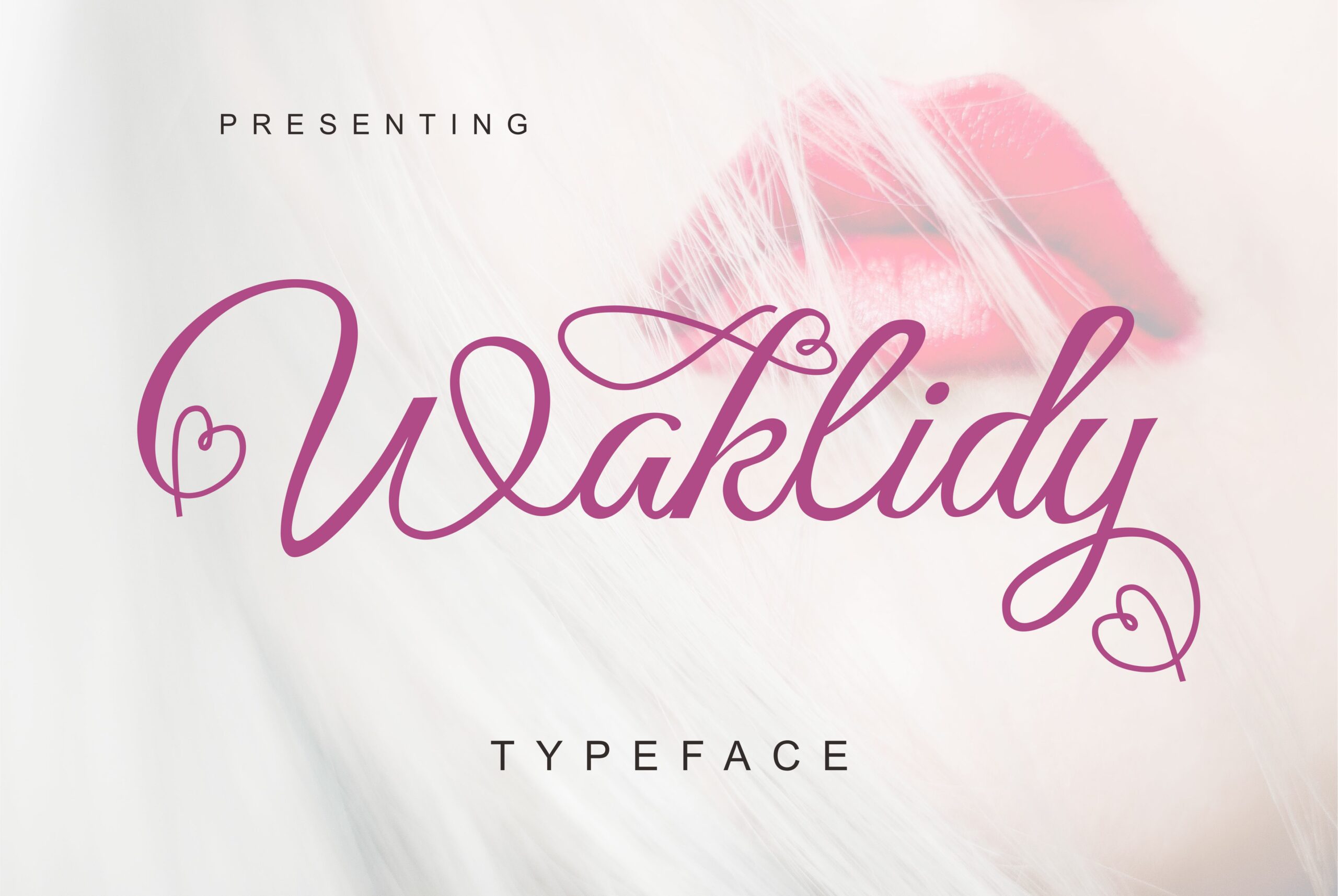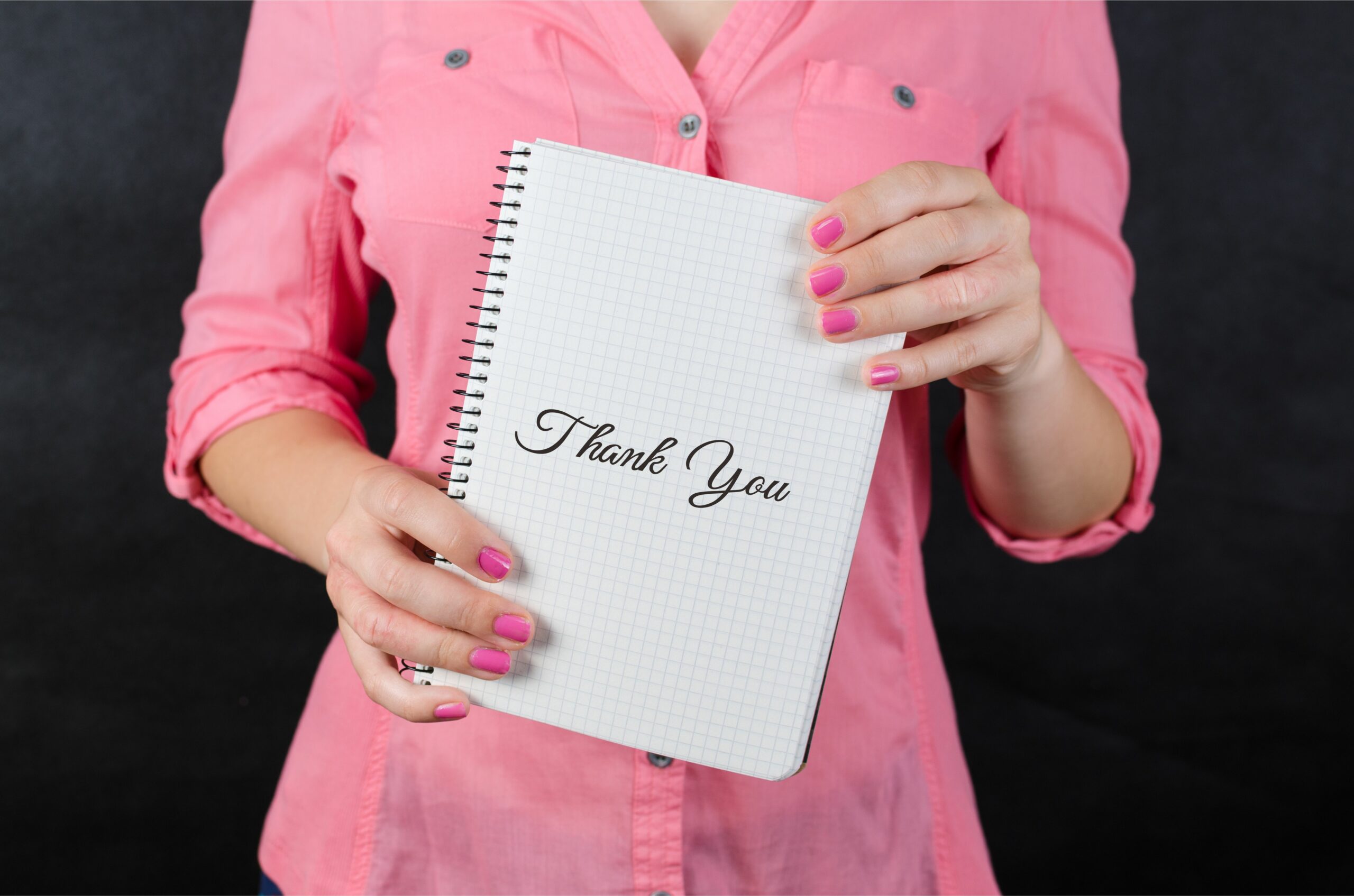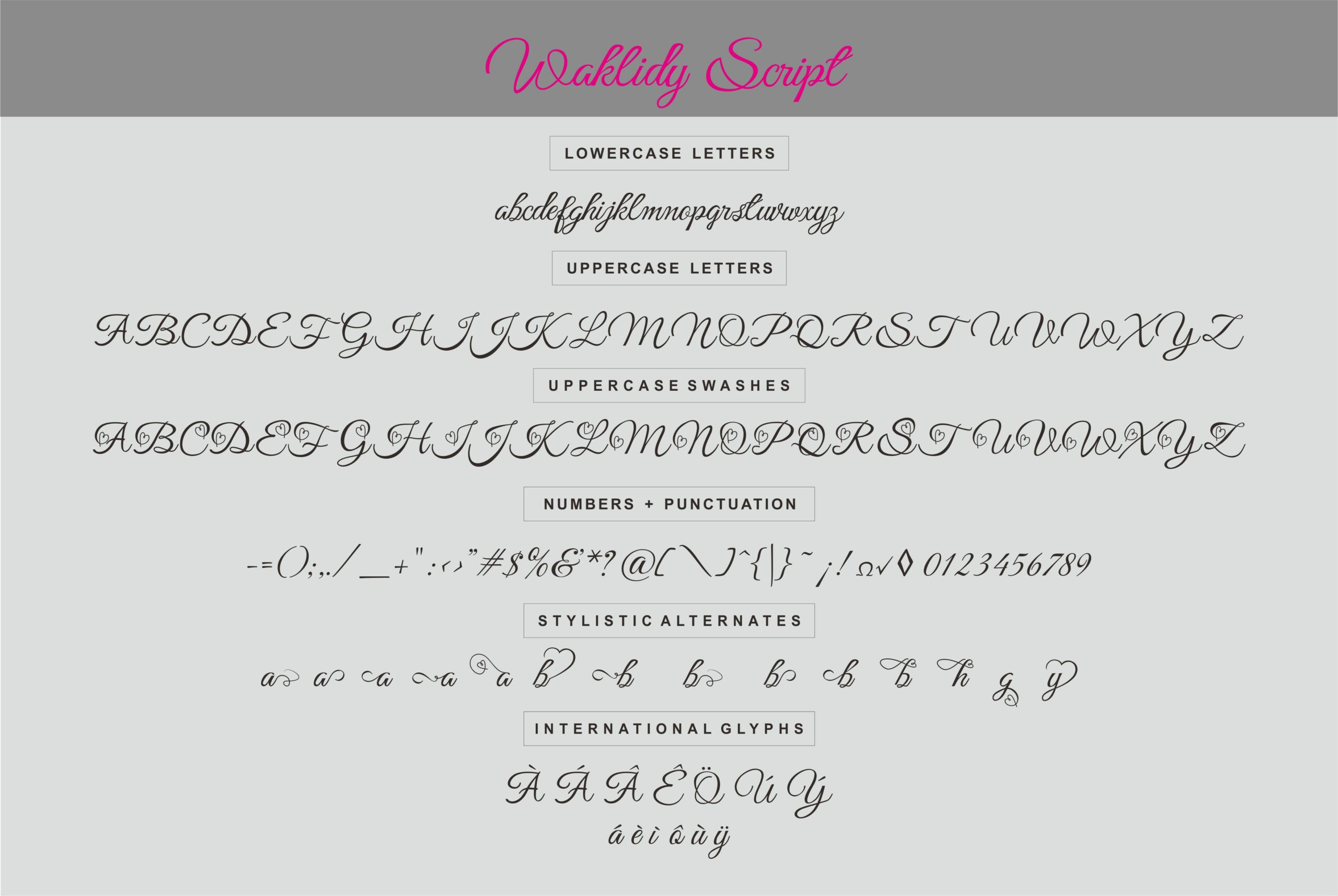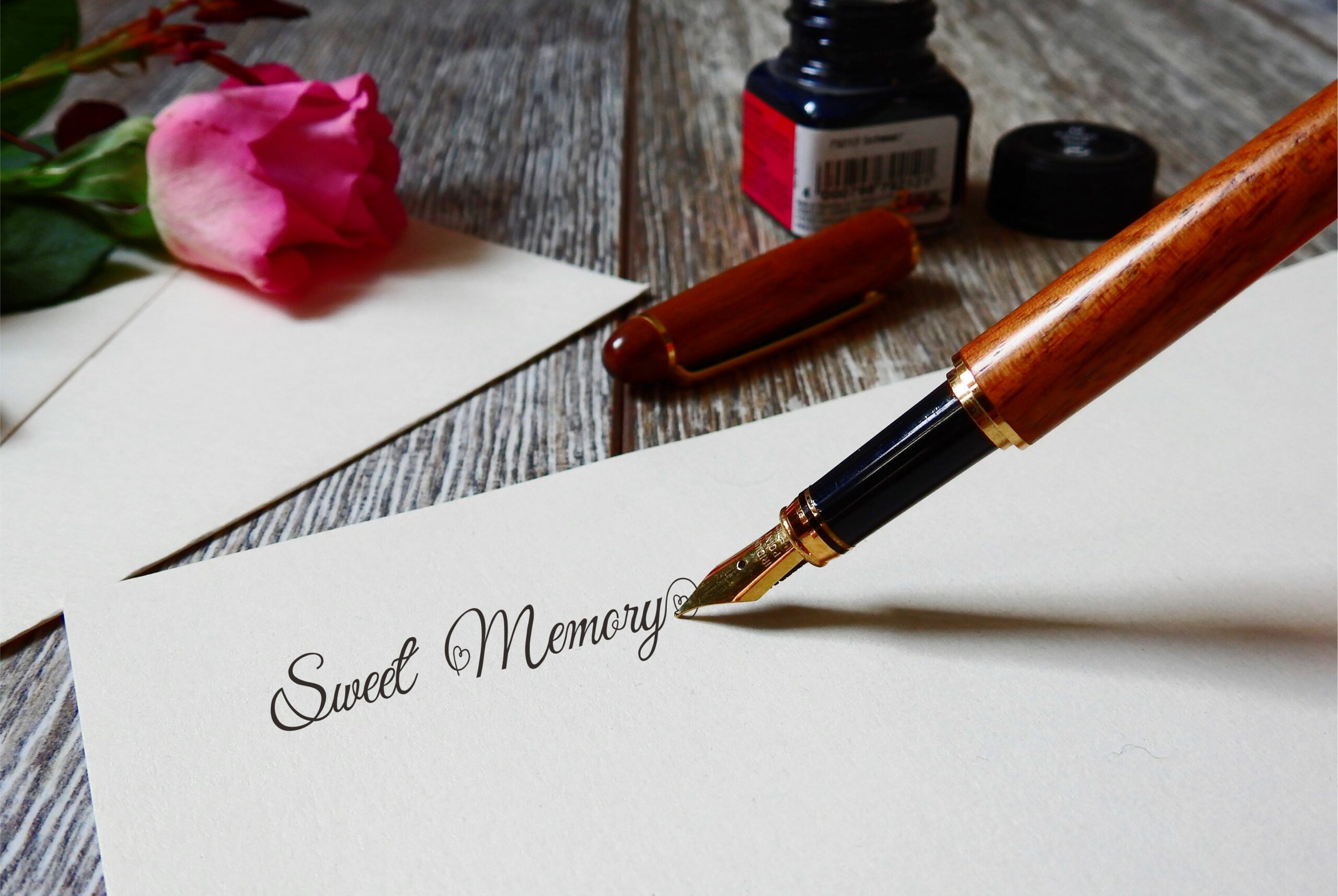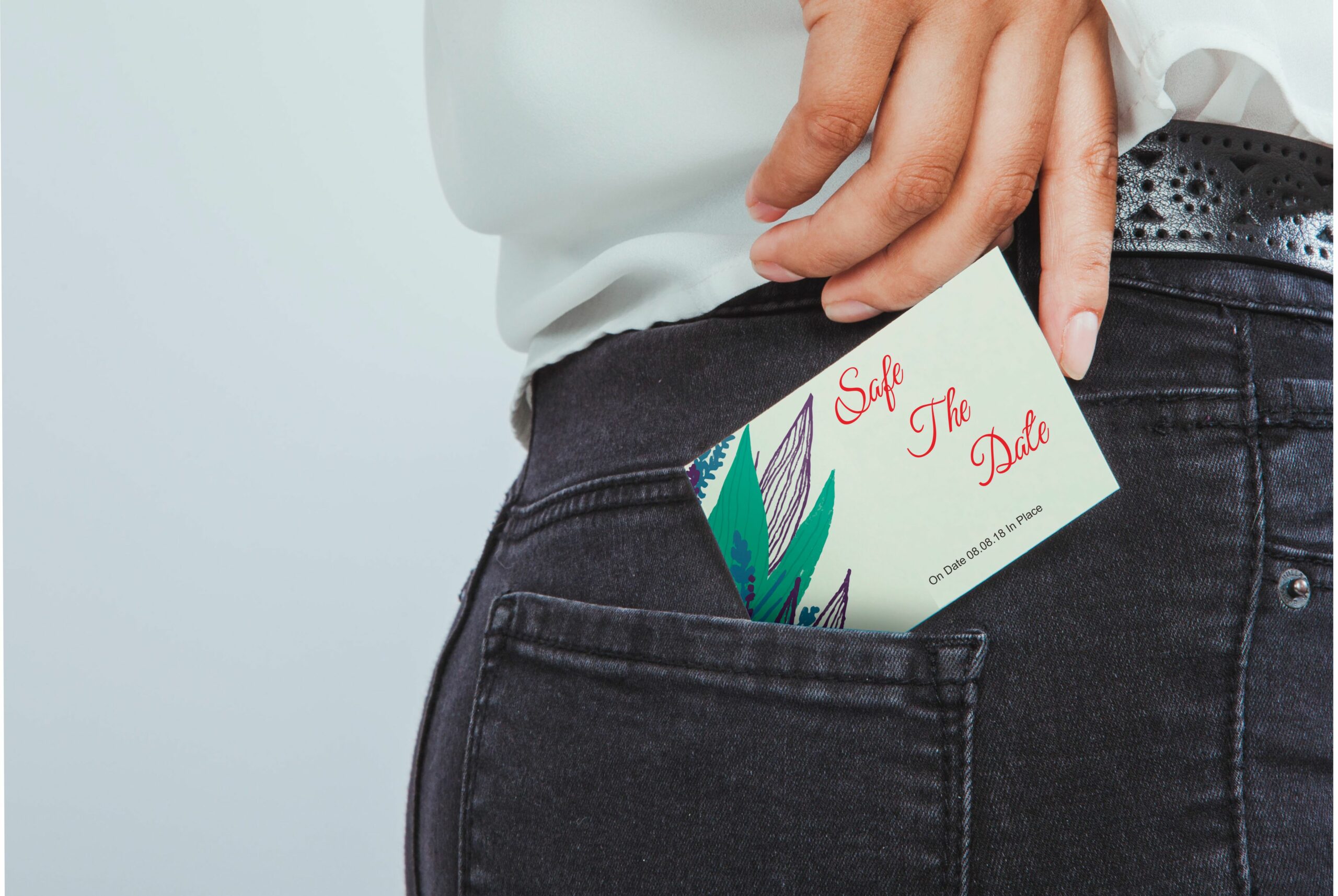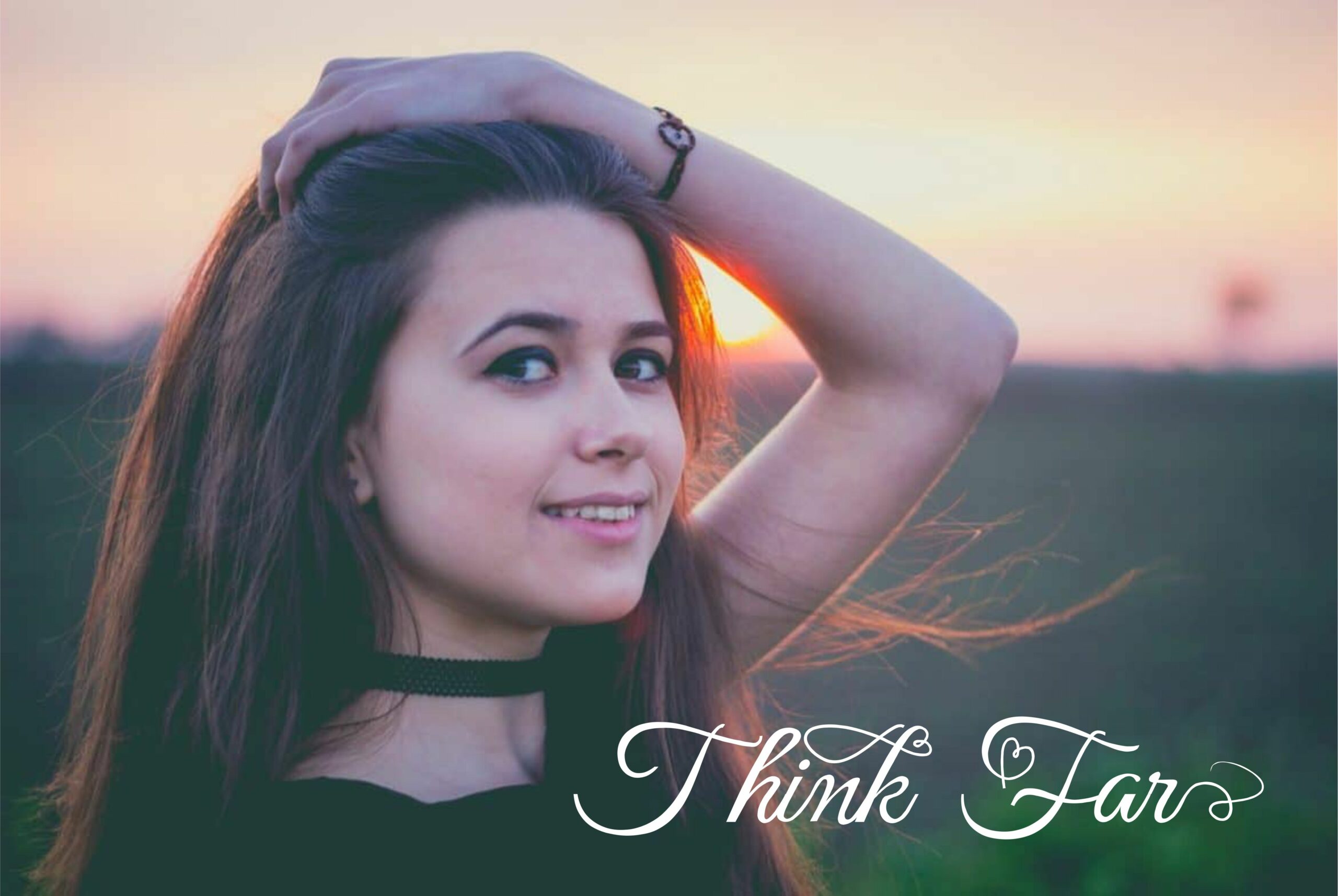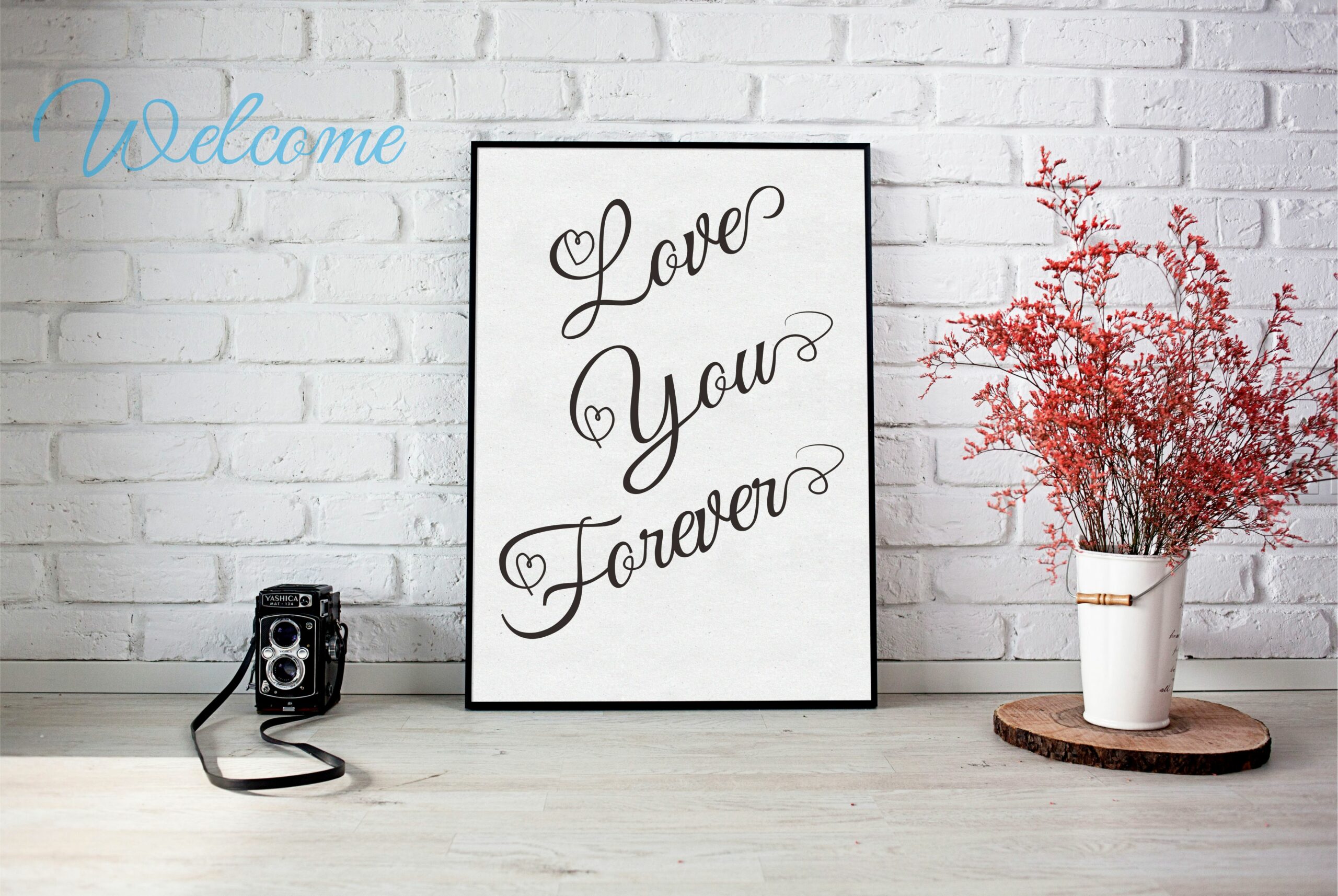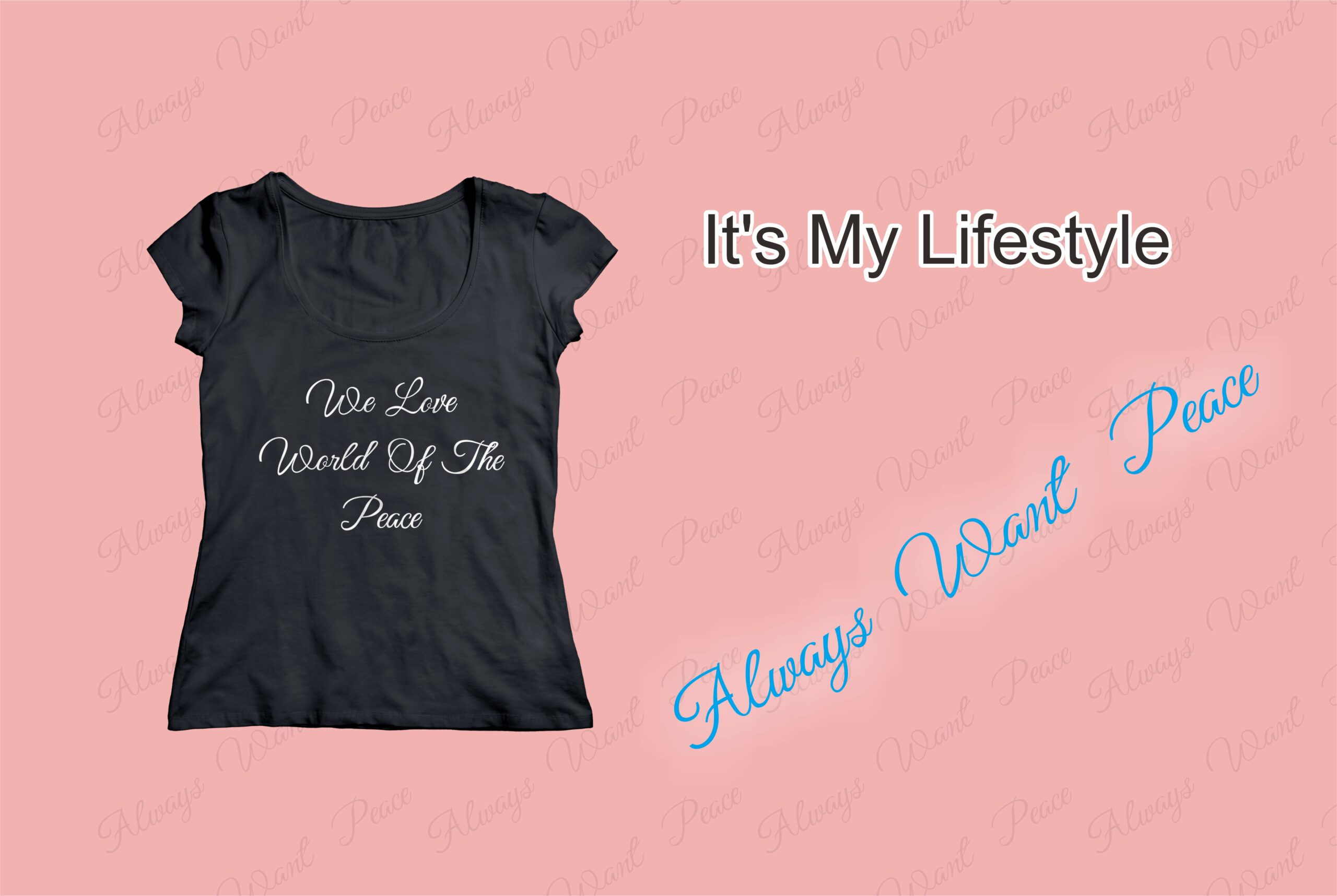
Waklidy Font
About Waklidy Font
Waklidy is a cutesy script, consisting of irregular letters and charming embellishments. This is a wonderful font for adding some delicateness and romance to your designs.